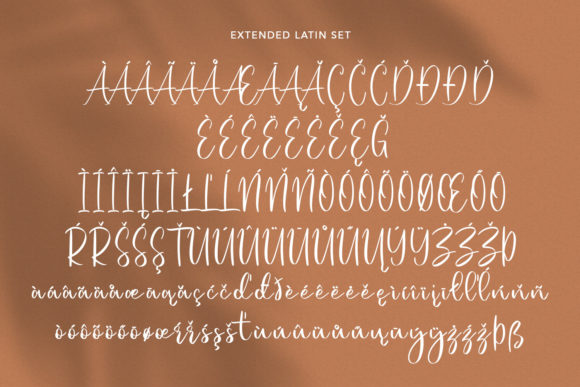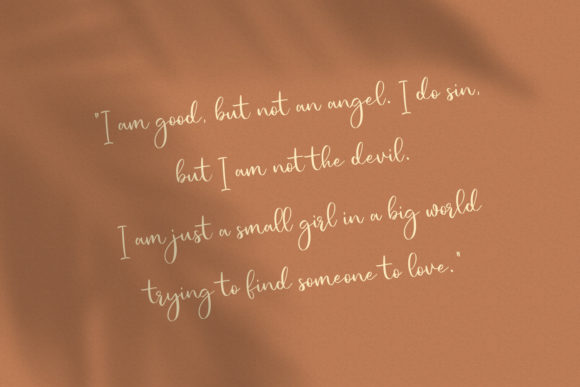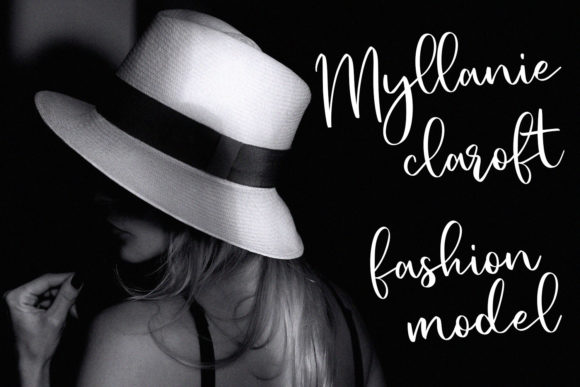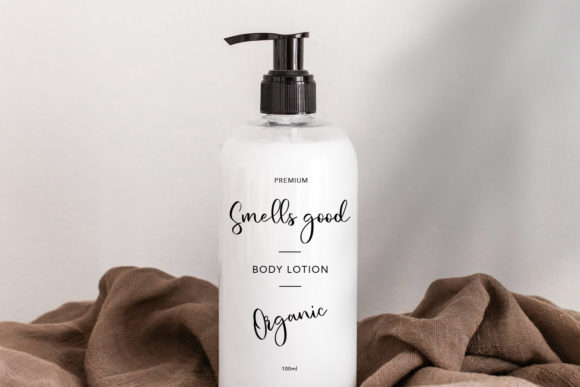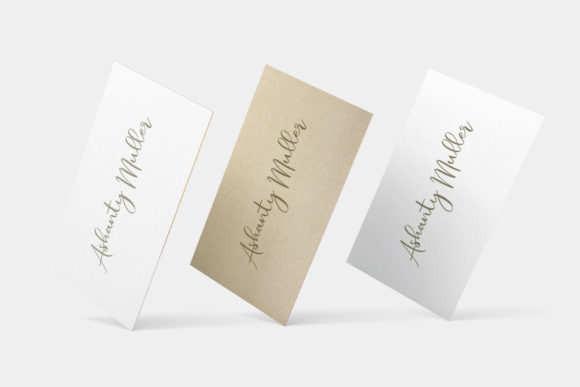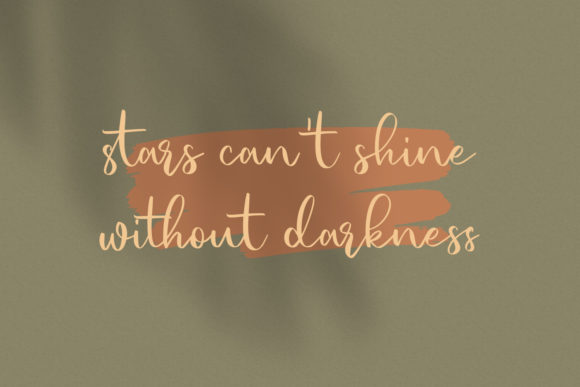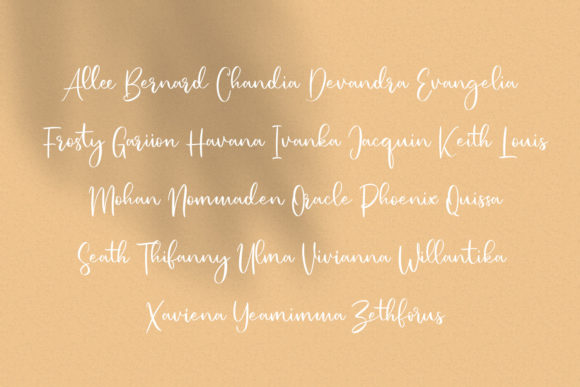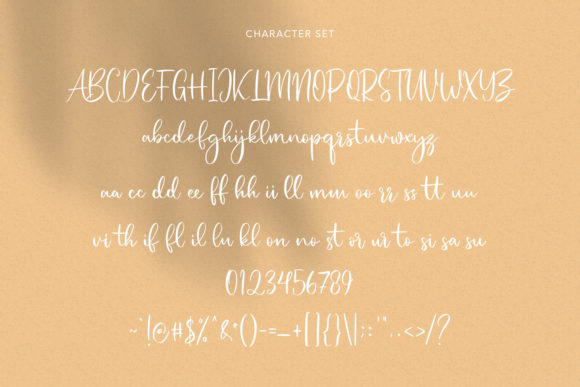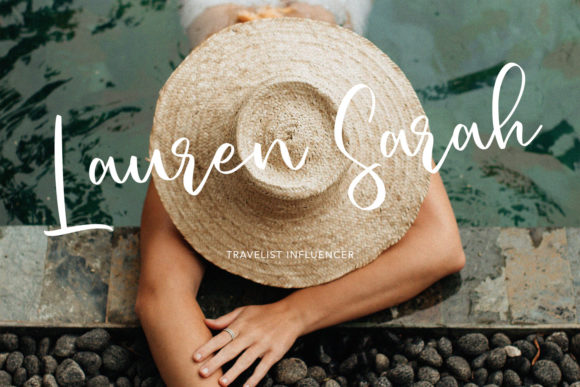
Mylofist Font
About Mylofist Font
“Mylofist” is a fashionable and sweet cursive script font that combines elegance with a touch of playfulness. Its balanced and varied letterforms make it an excellent choice for enhancing the beauty of your design projects. With its medium thickness, “Mylofist” strikes a perfect balance, making it versatile and suitable for a wide range of creative applications.
The stylish and cursive nature of “Mylofist” adds a sense of sophistication and charm to any design. It is ideal for creating a romantic and whimsical atmosphere, making it perfect for wedding invitations, love letters, greeting cards, and other sentimental designs. The fluid strokes and graceful curves of the font give it a dynamic and lively appearance, adding movement and energy to your text.
With its balanced letterforms and varied characters, “Mylofist” can be easily adapted to different design contexts. Whether you’re working on branding projects, packaging, social media graphics, or personal projects, this font will bring a touch of elegance and personality to your designs.
One of the great features of “Mylofist” is its versatility in terms of size and spacing. You can use it for large headlines to create impact and draw attention, or for smaller text to add a subtle and delicate touch. Its well-designed and legible characters ensure readability, even at smaller sizes.
To enhance your creative freedom, “Mylofist” also includes a wide range of glyphs and ligatures, allowing you to access additional decorative elements and alternate letterforms. This PUA-encoded font ensures easy access to all the special characters and swashes, making it effortless to create unique and customized designs.
In summary, “Mylofist” is a fashionable, sweet, and cursive script font that strikes a perfect balance between elegance and playfulness. Its medium thickness, balanced letterforms, and varied characters make it suitable for a wide range of design projects. Whether you’re working on wedding invitations, branding, packaging, or social media graphics, “Mylofist” will enhance the beauty of your designs and add a touch of charm and sophistication.